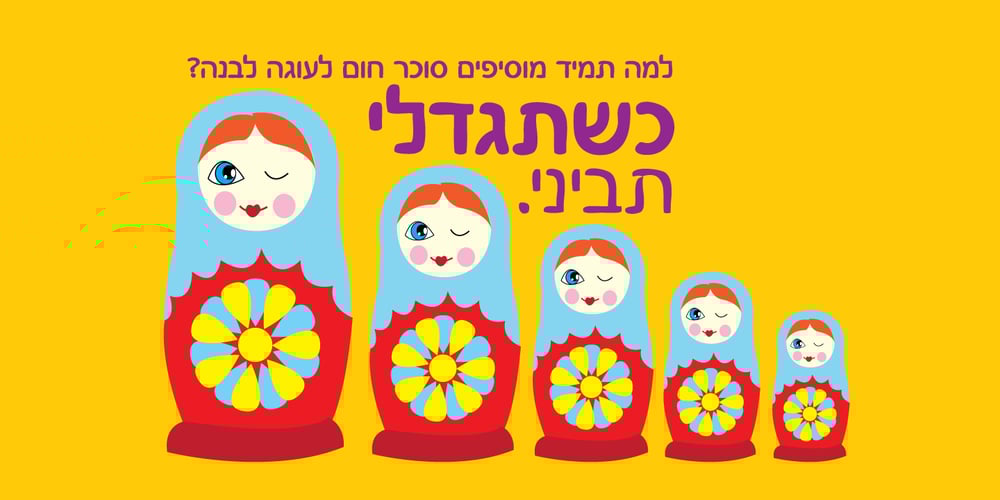
Kayzi MF
Kayzi MF font
Kayzi MF Font Family was designed by Uzi Batish and published by Masterfont. Kayzi MF contains 3 styles and family package options. Happy, childish, cute handwriting font, not to crazy, not too stable either.